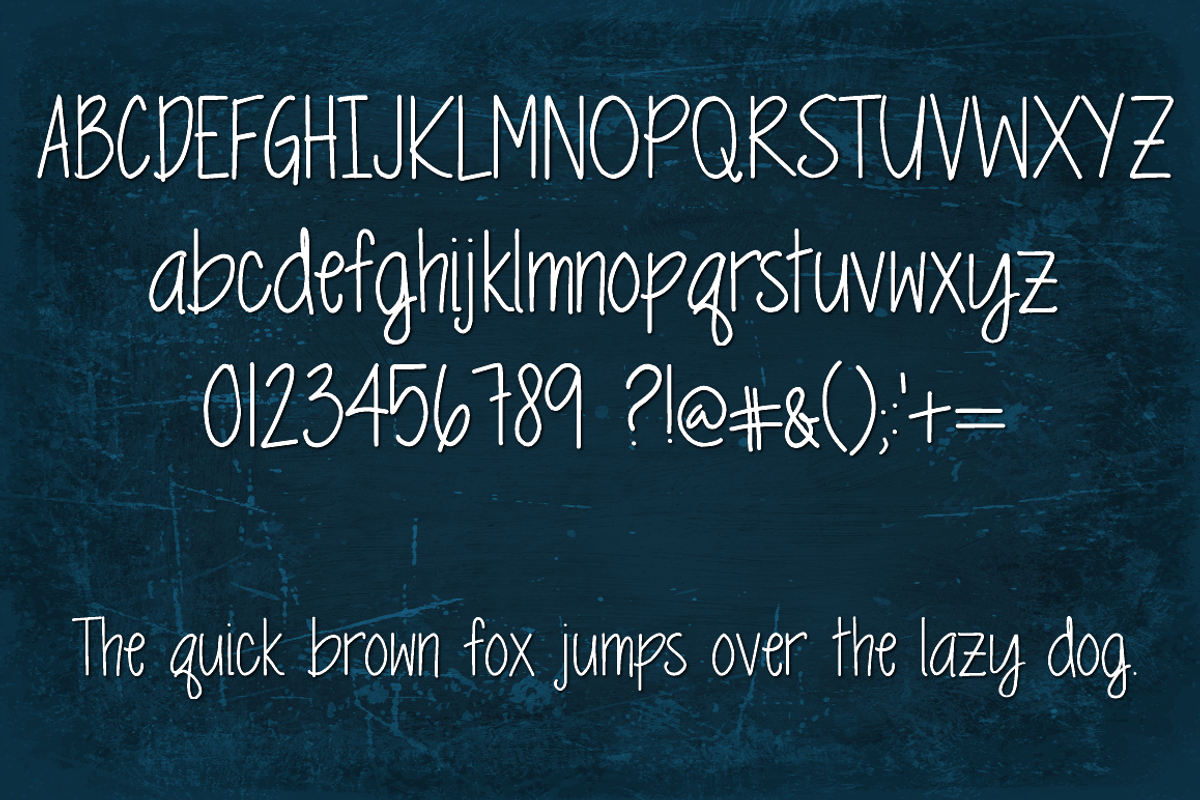
Springtime Blues Two Font
Springtime Blues Two Font by Sabrina Schleiger Design is a font selected for branding, posters, packaging, typography.
Why Springtime Blues Two Font is worth a look
Springtime Blues Two Font by Sabrina Schleiger Design fits naturally into Branding, posters, packaging, typography.